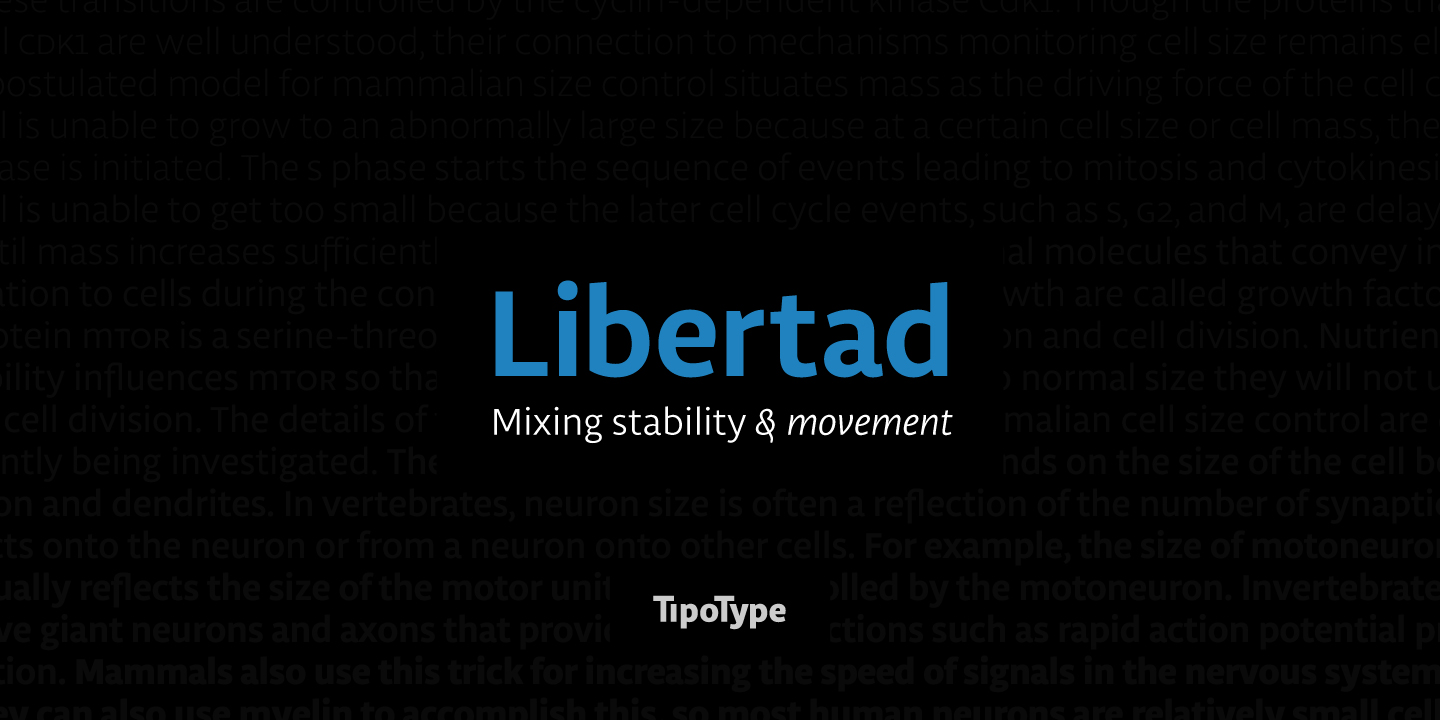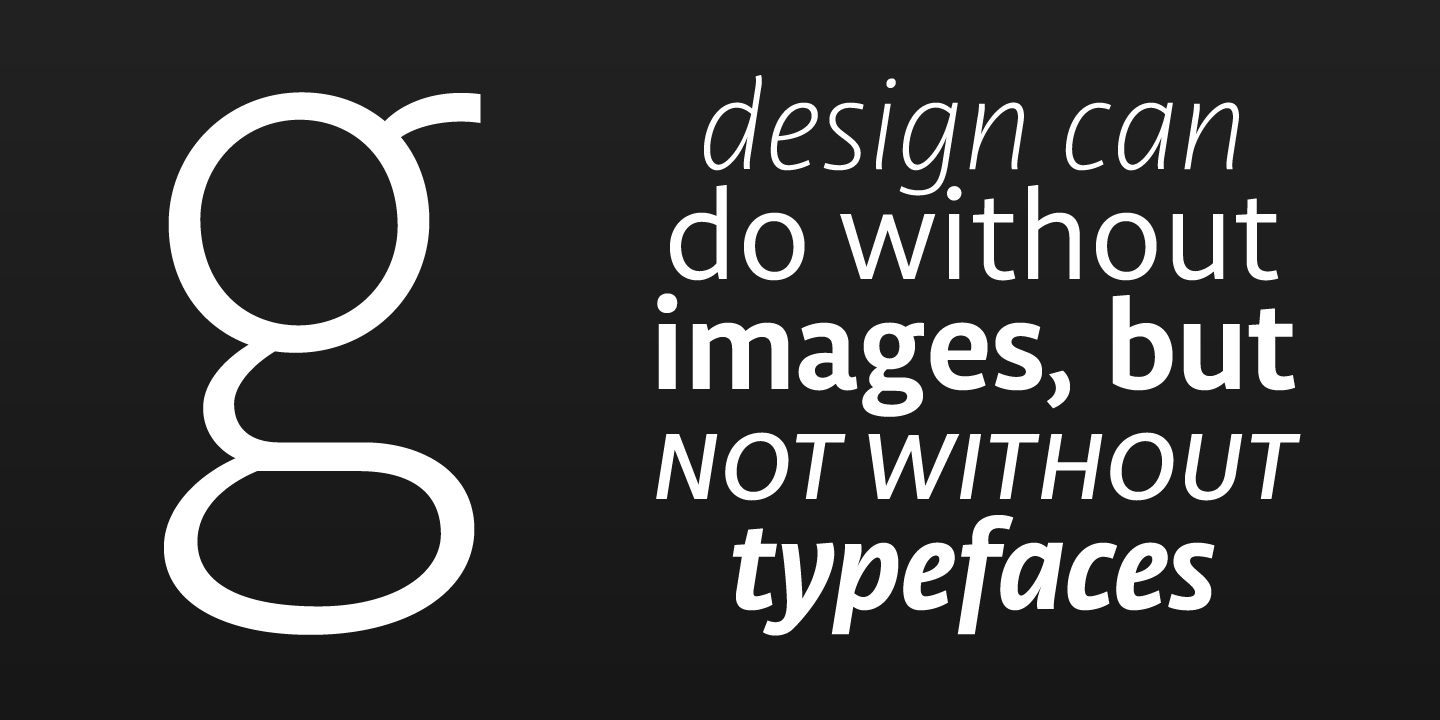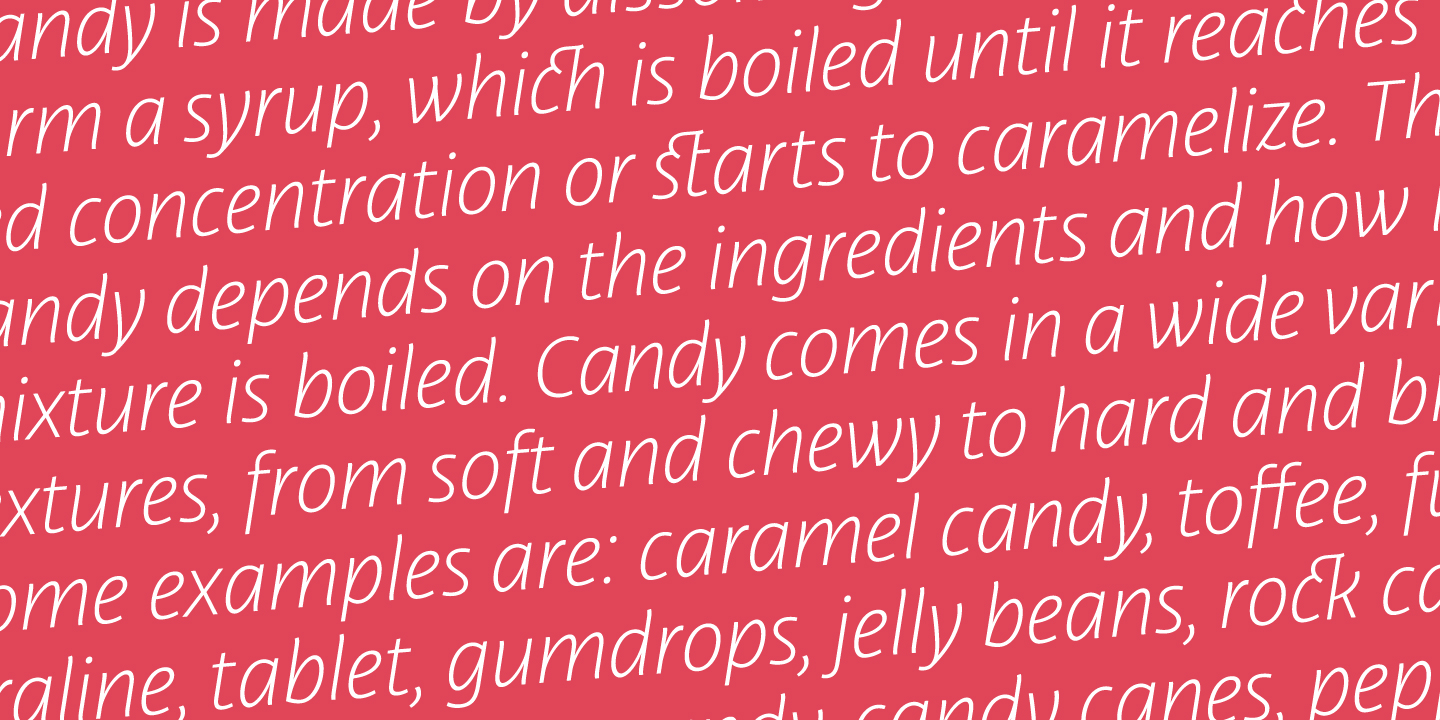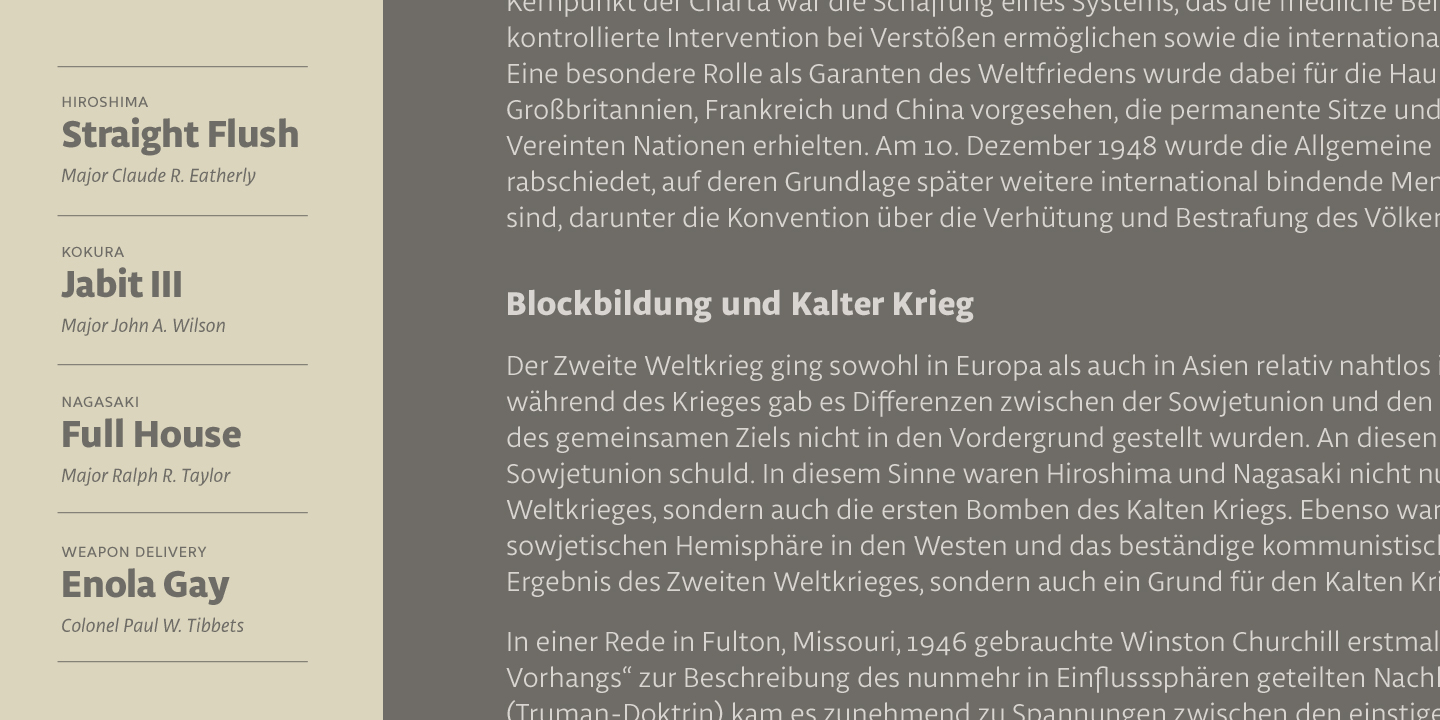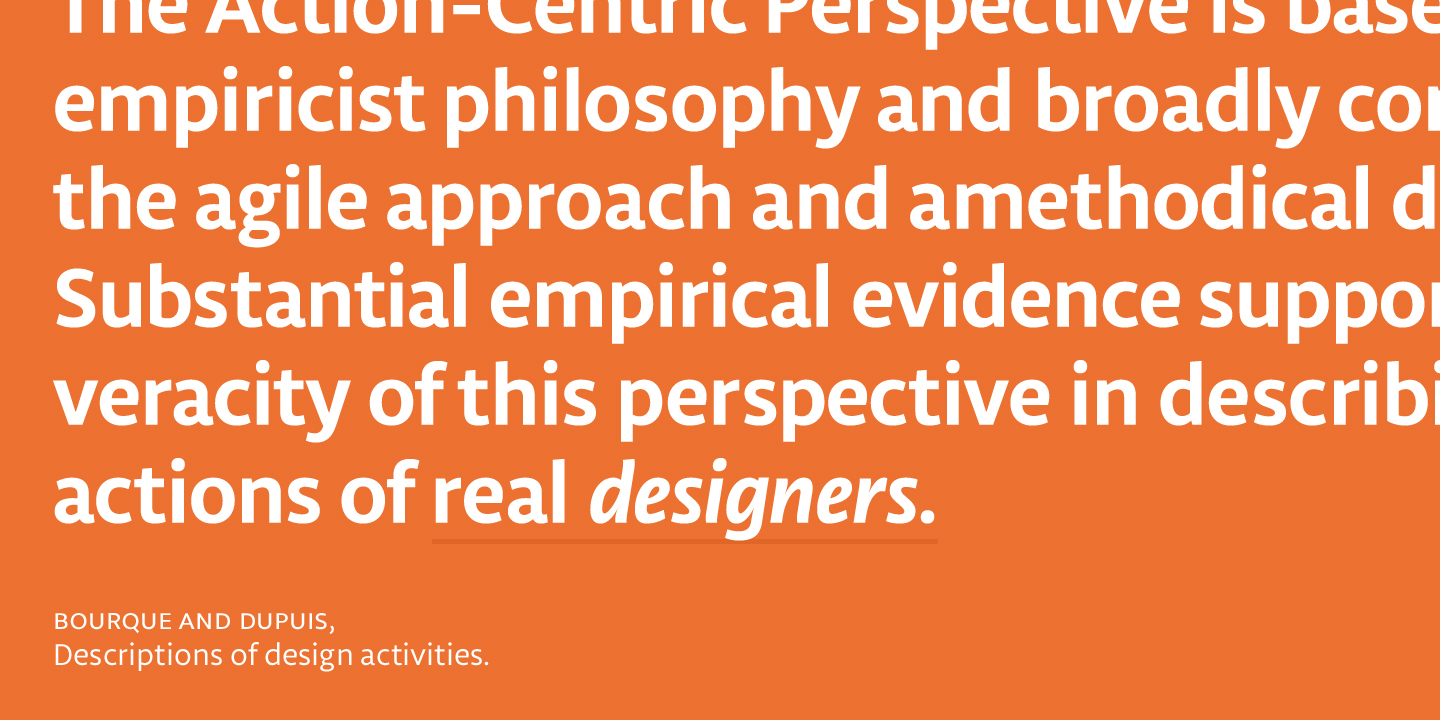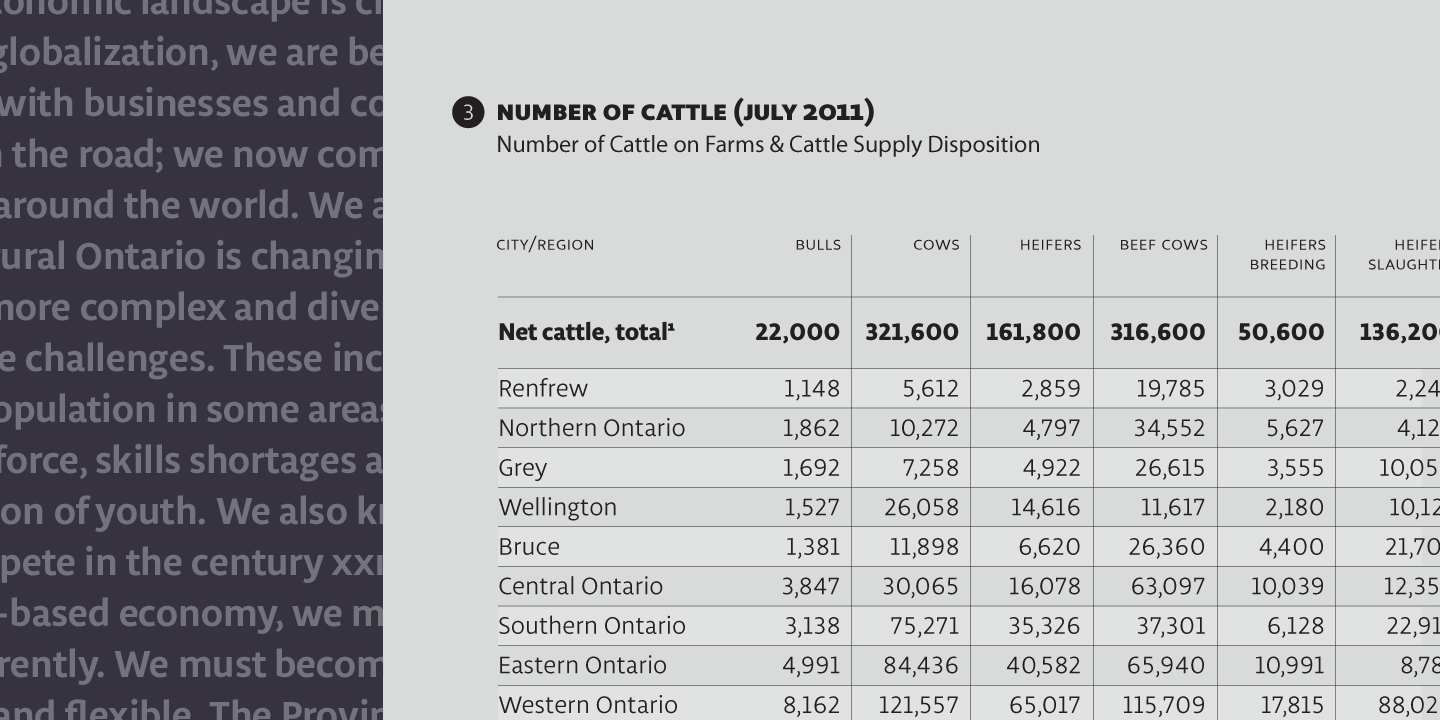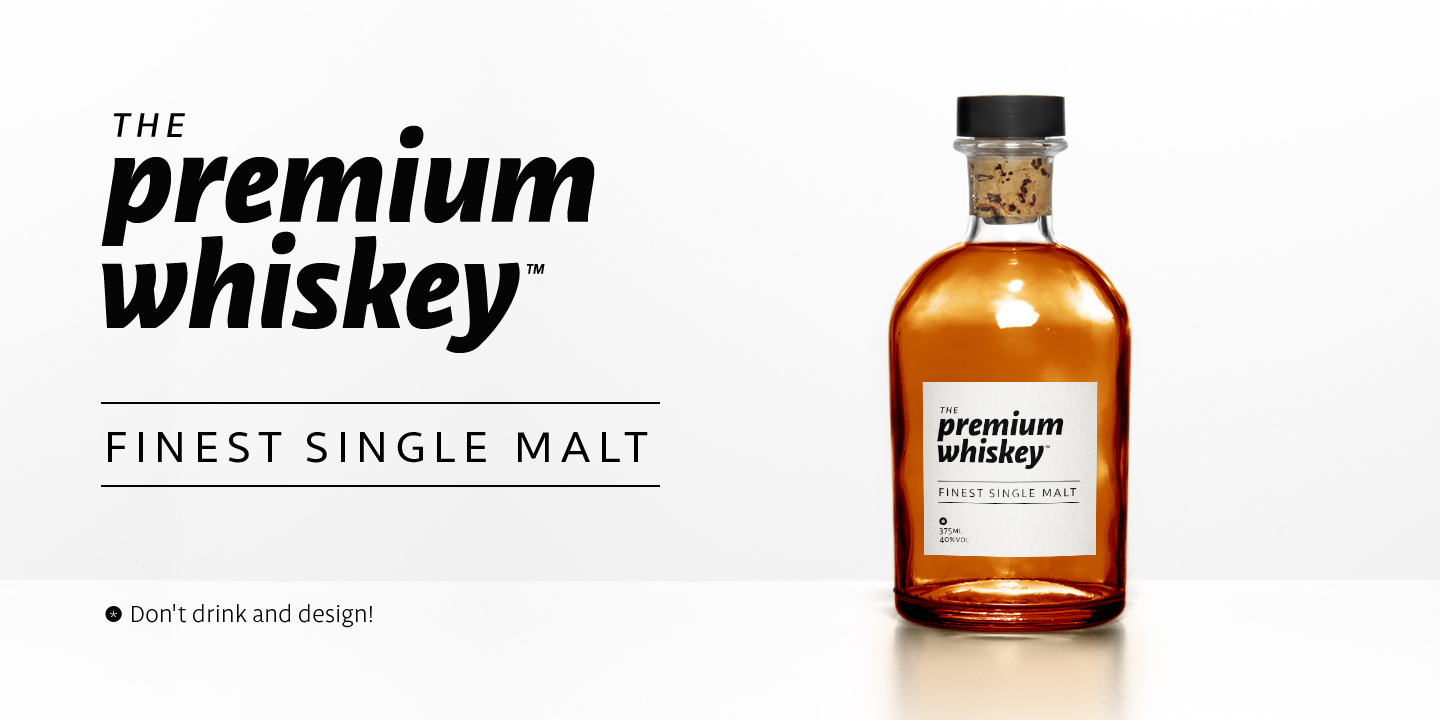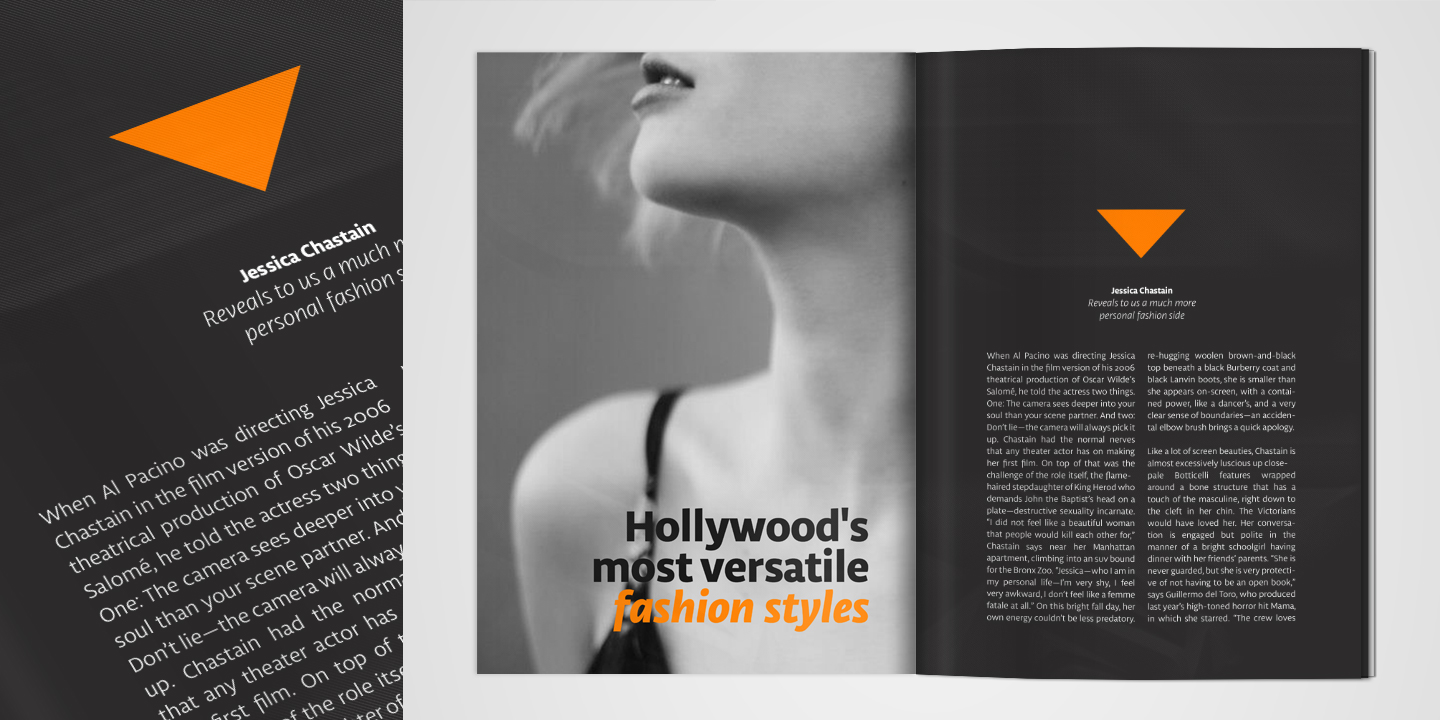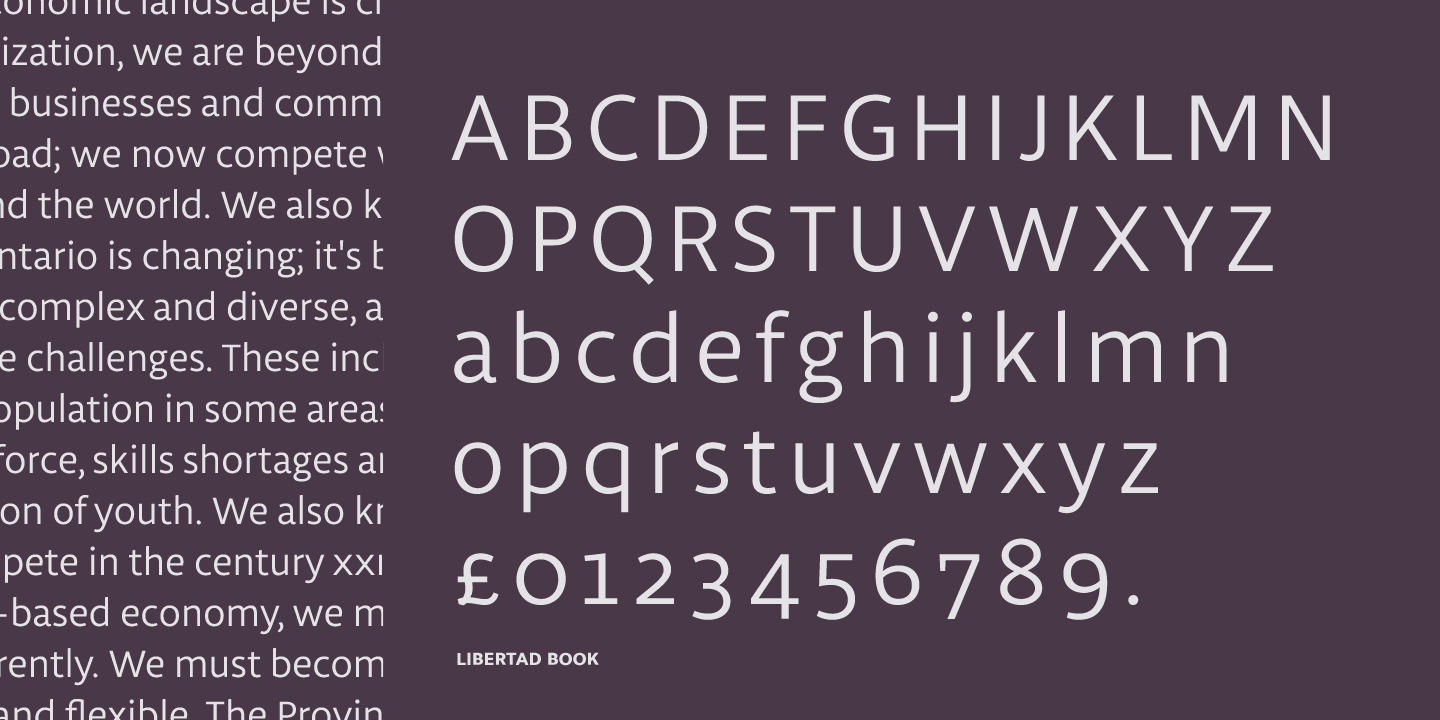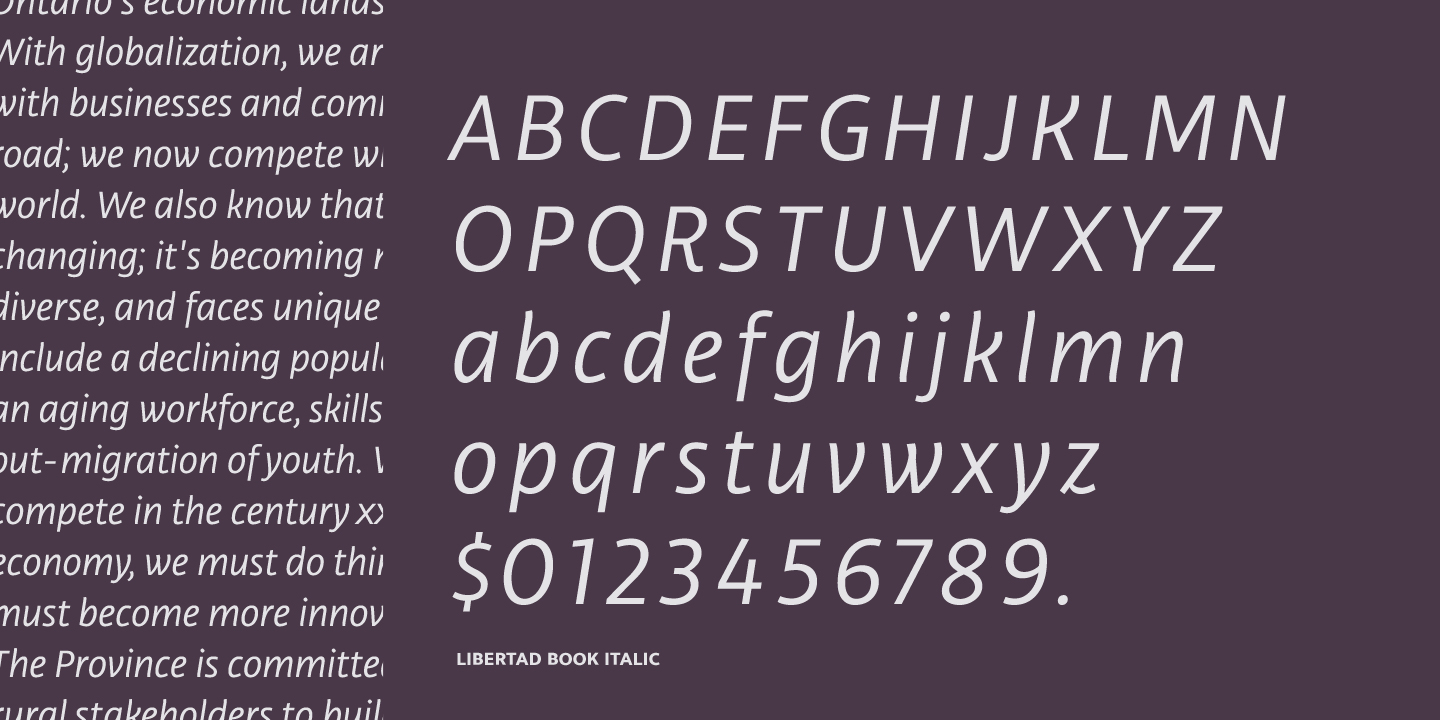
The design's most interesting feature is the combination of balanced regulars with dynamic italics, which makes it a very versatile font for many different uses.
This typeface design follows the Luc(as) de Groot (Lucas Fonts) Interpolation Theory with specially calculated weights plus their matching italics, from thin to extra bold. This allows the font to be useful in big headlines and also small texts. Each font includes more than 800 characters and supports for more than 70 languages.
Old-style Digits, Ligatures, Discretionary Ligatures, Small Caps, Historical Forms, Alternates